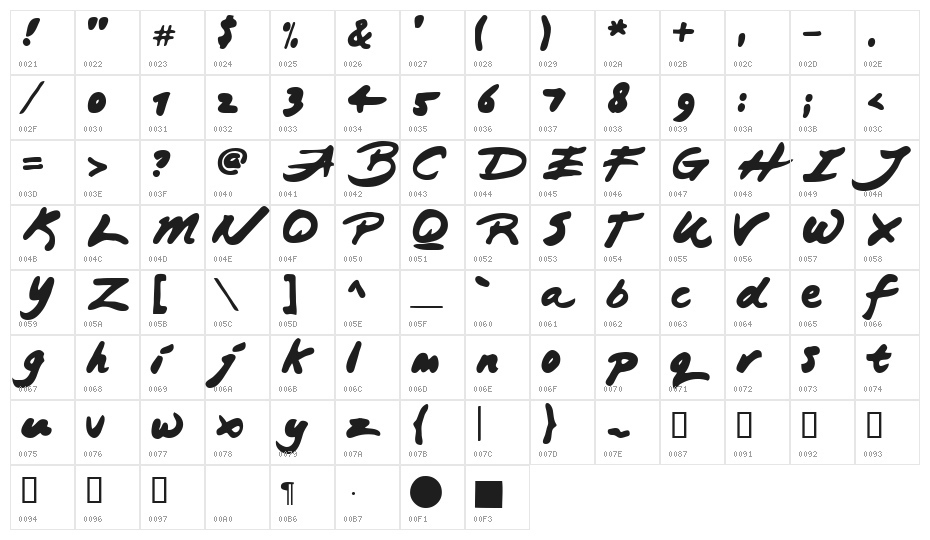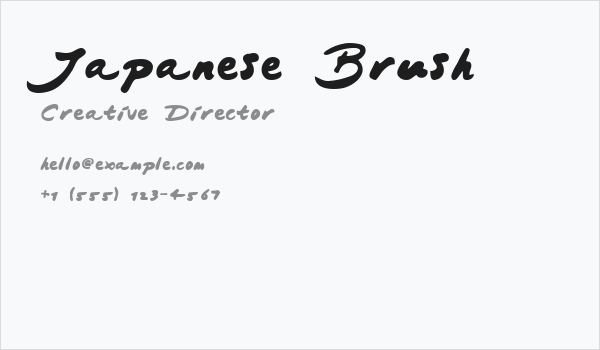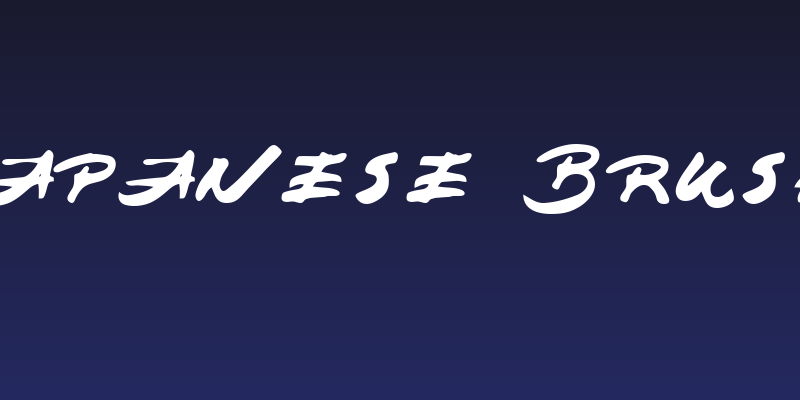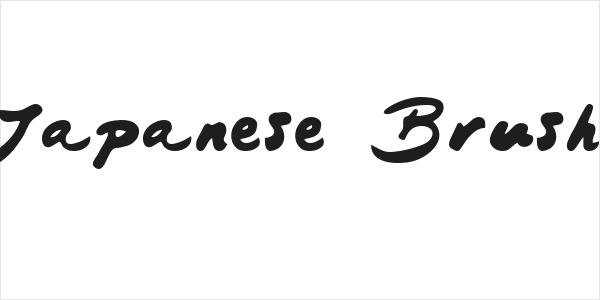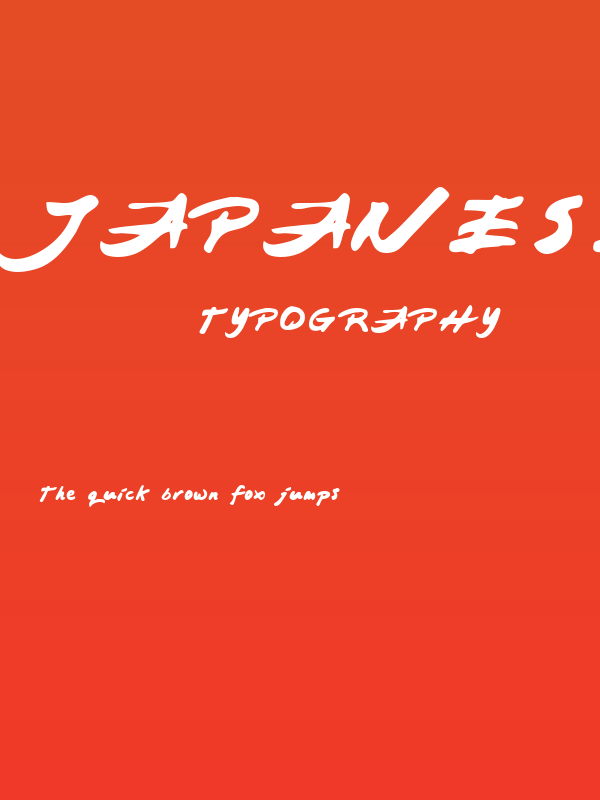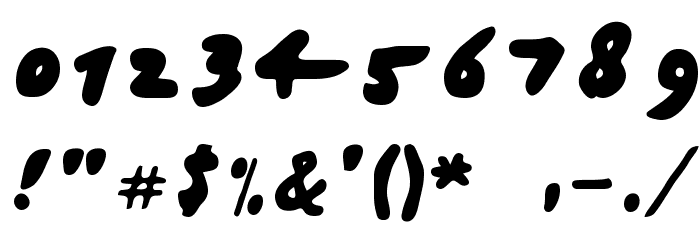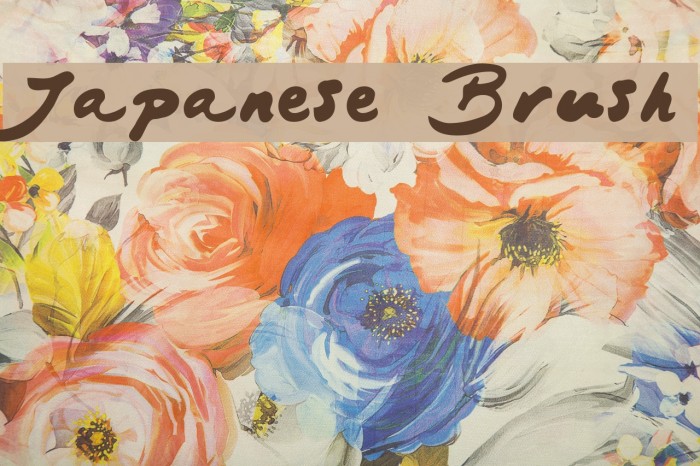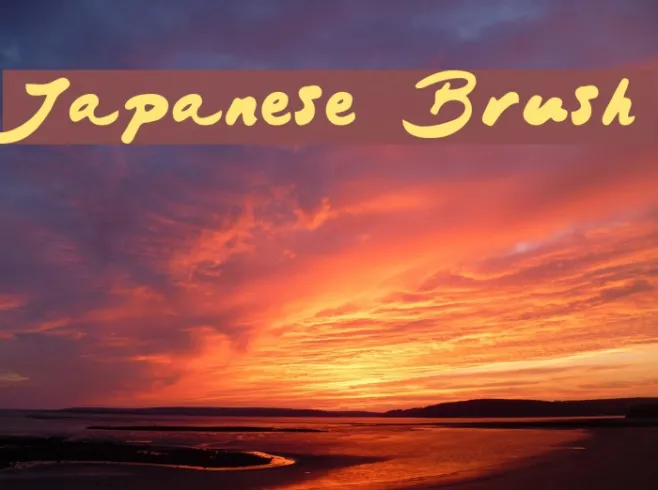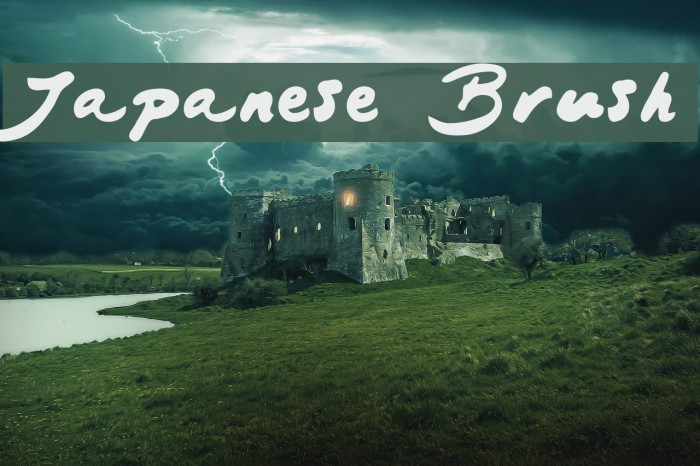
Japanese Brush Font
Japanese Brush Description
This font exudes a dynamic and artistic flair, reminiscent of traditional Japanese brush calligraphy. The strokes are bold and fluid, capturing the essence of hand-drawn characters with a modern twist. Each letter is crafted with a sense of movement and energy, making it ideal for projects that require a touch of creativity and cultural depth. The uppercase and lowercase letters maintain a consistent style, with rounded edges and varying stroke widths that add to its visual appeal. Numbers and special characters are equally expressive, ensuring a cohesive look across different text elements.
| Overall Style | Modern, Artistic |
| Proposed Projects | Ideal for artistic projects, cultural event posters, branding for creative industries, and any design needing a touch of traditional elegance. |